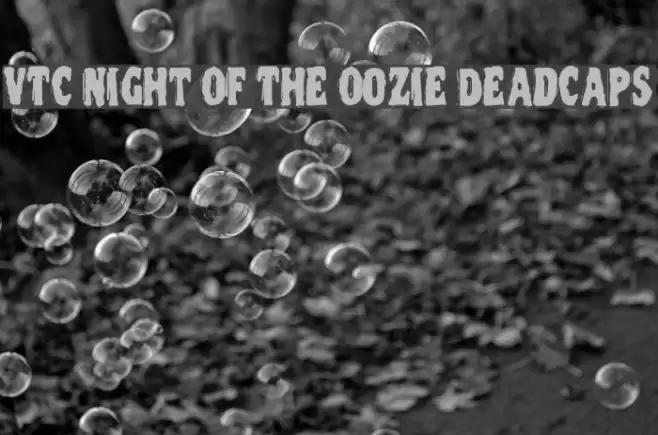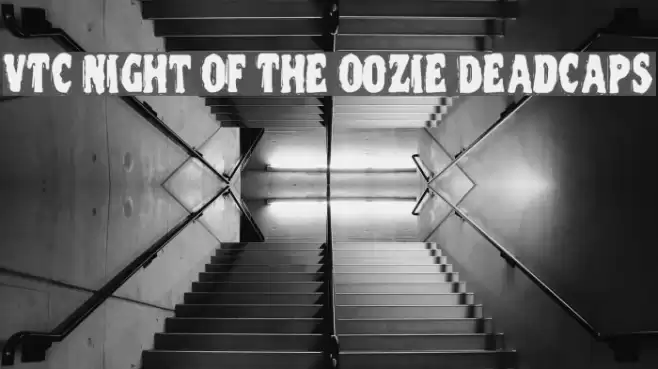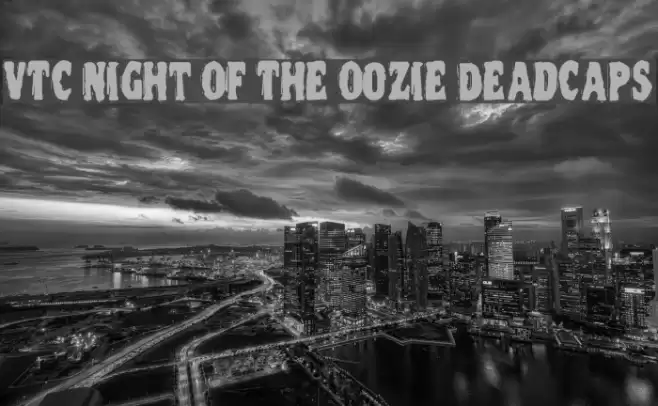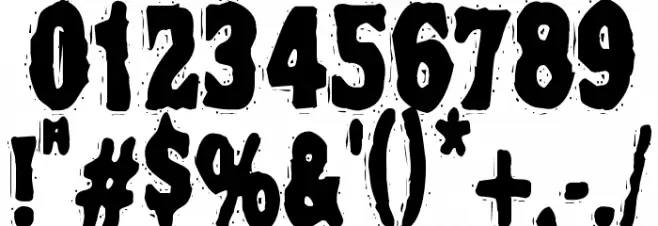
VTC Night Of The Oozie DeadCaps Font
VTC Night Of The Oozie DeadCaps Description
This font features a bold and playful design with a spooky, dripping effect reminiscent of horror or Halloween themes. The characters are thick and irregular, giving a sense of movement and fluidity. The uppercase and lowercase letters maintain a consistent style, with exaggerated curves and uneven edges that enhance the eerie aesthetic. Numbers and special characters follow the same design principles, ensuring a cohesive look across all glyphs. The font's unique style makes it stand out, perfect for creative projects that require a touch of the macabre or whimsical horror.
A bold, playful font with a spooky, dripping effect ideal for horror themes from Uncategorized fonts.
- Proposed Projects: Ideal for Halloween-themed posters, horror movie titles, spooky event invitations, and creative graphic design projects.